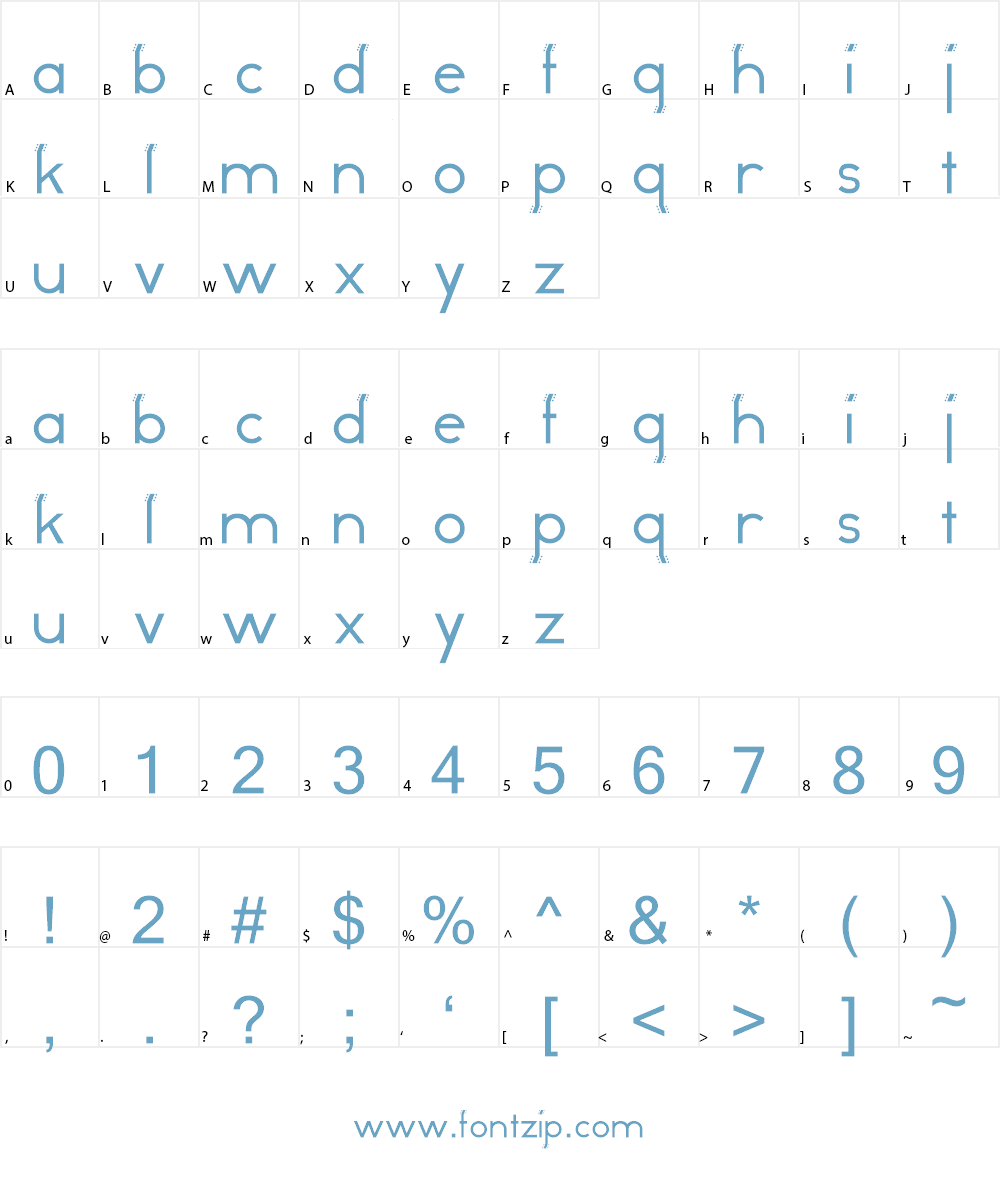
Back in high school I knew some guys in a band called Dog Odd. They
had a banner where they had written their name out in letters like
these. I don't know what made me think of them, but I liked their
lettering so I thought I'd make it into a font.